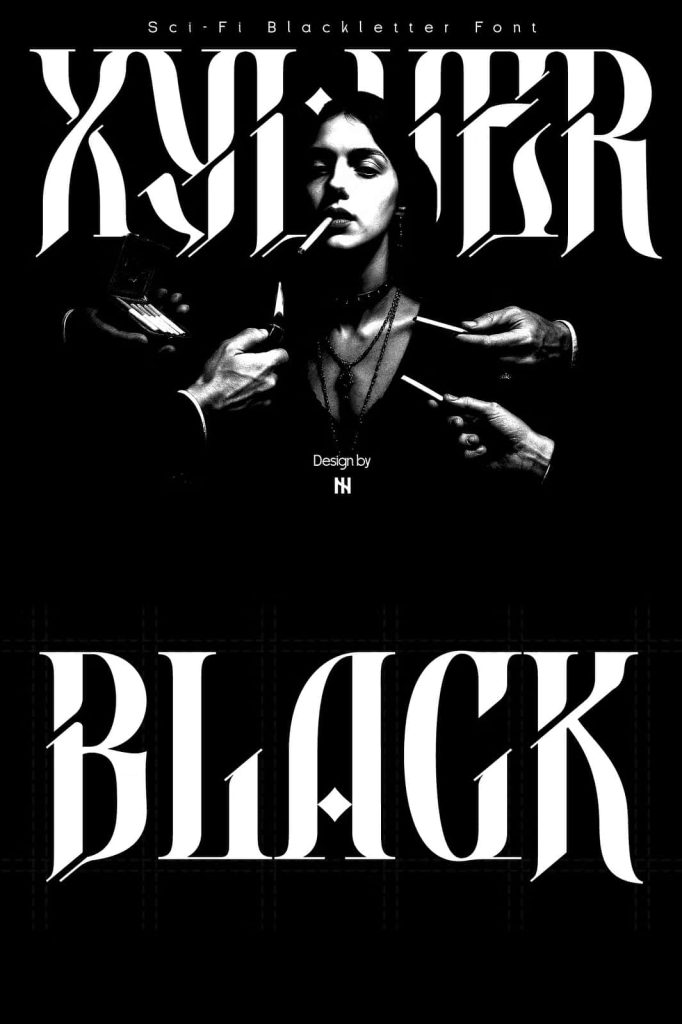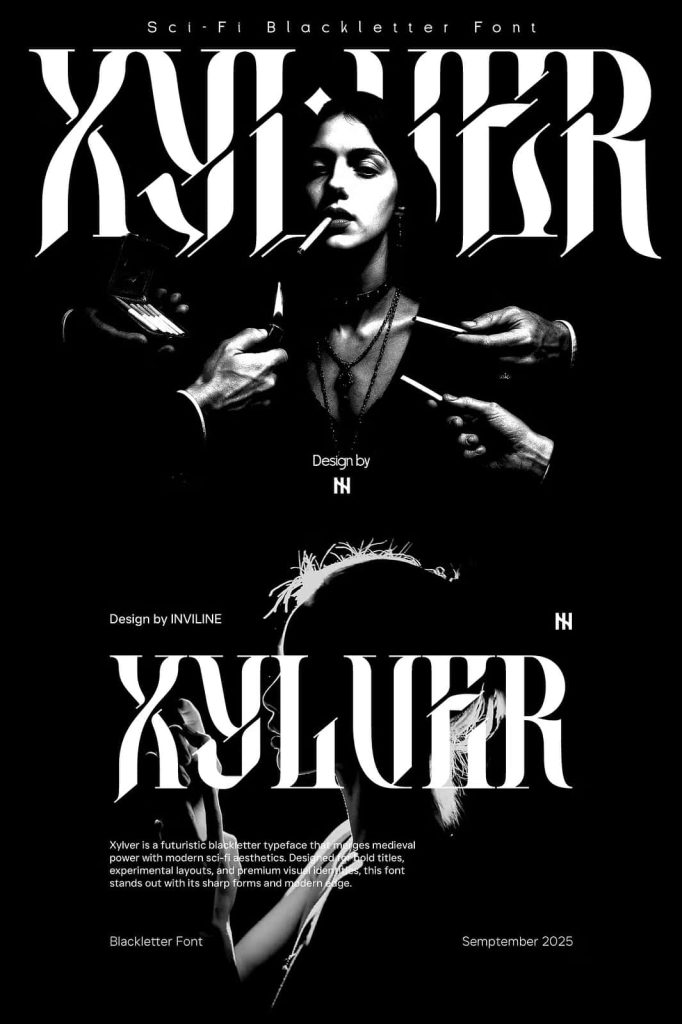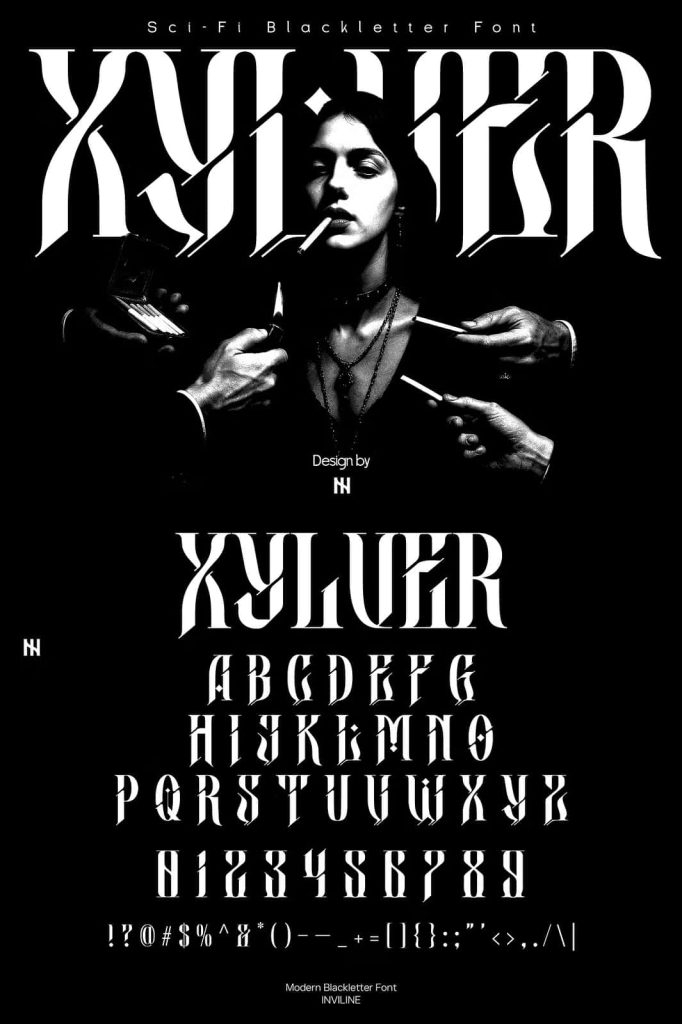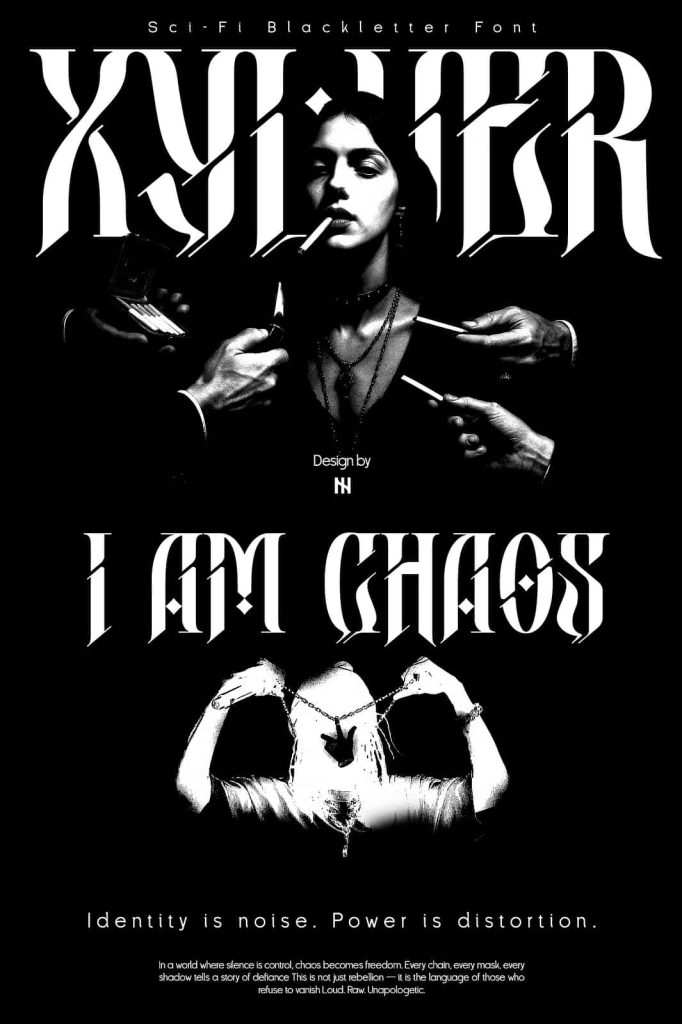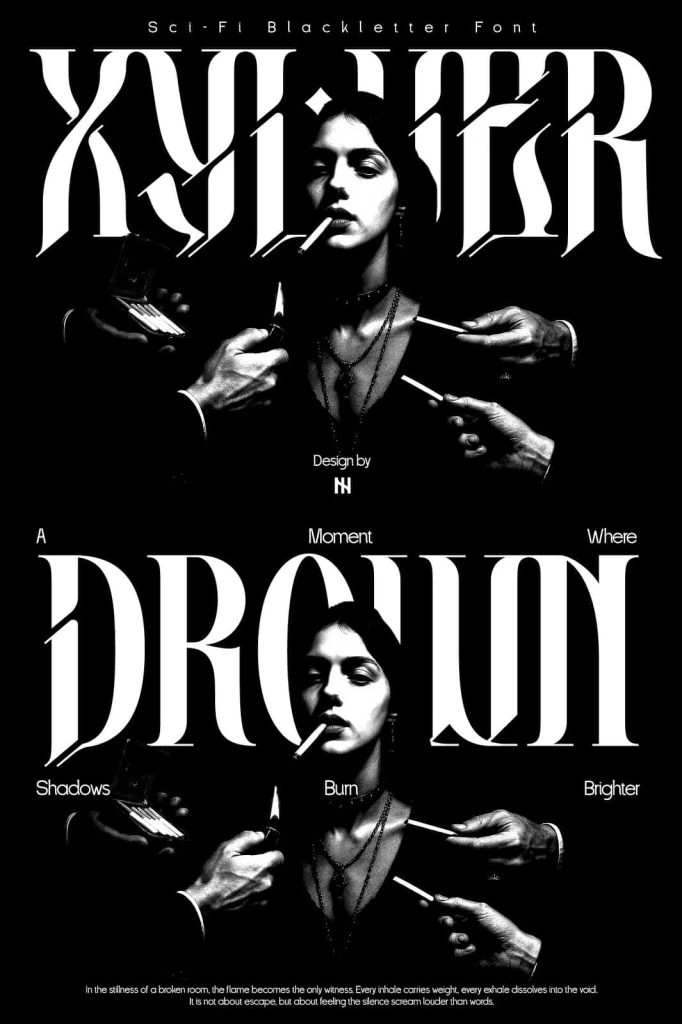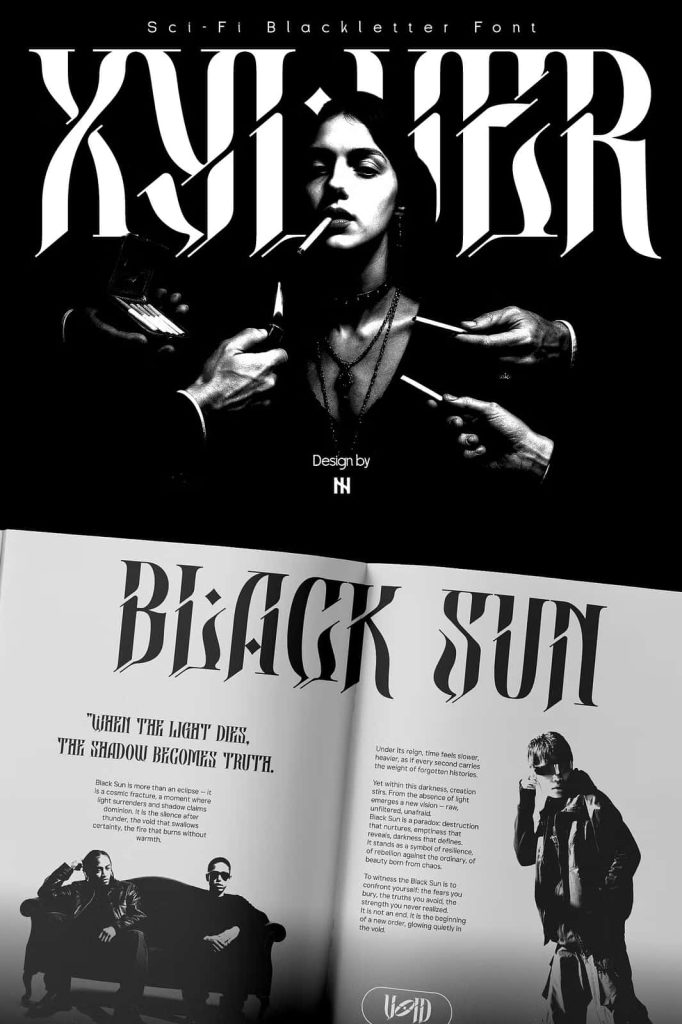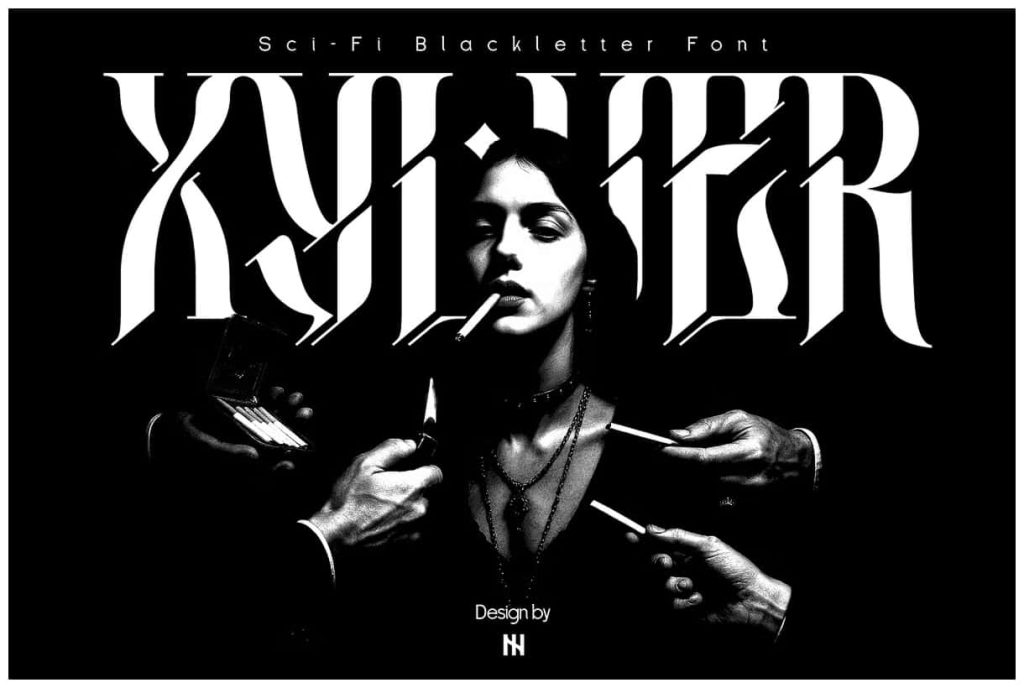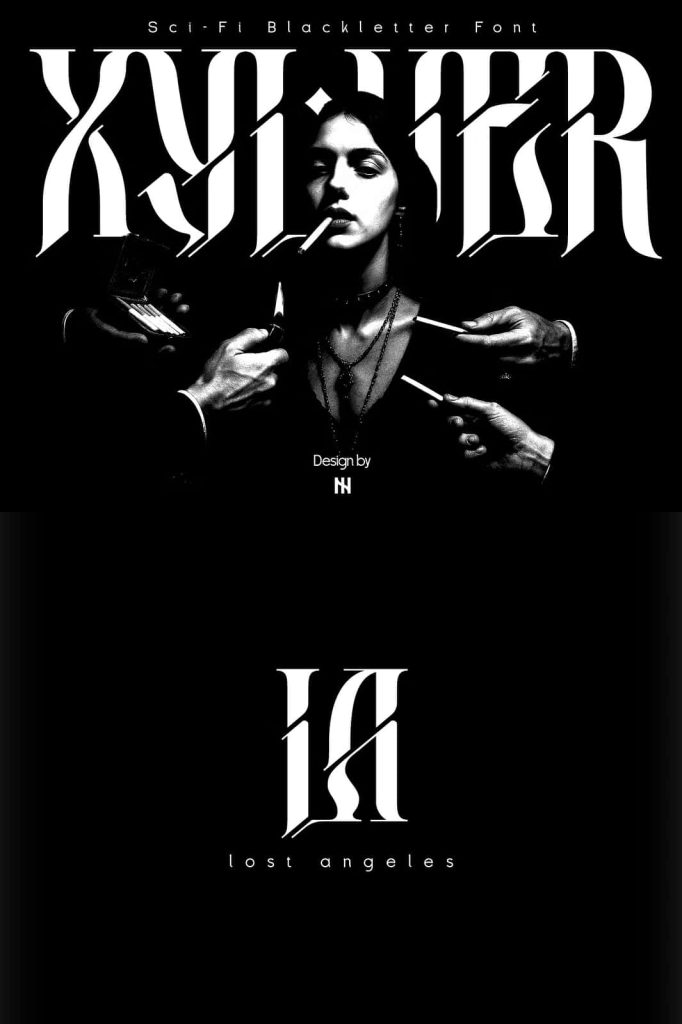
Step into the dark realm of futuristic typography with Xylver, a blackletter font with a sharp sci-fi twist. Bold, distorted, and dripping with attitude, Xylver merges medieval rebellion with futuristic aesthetics, making it the perfect choice for designs that demand presence, mystery, and dominance.